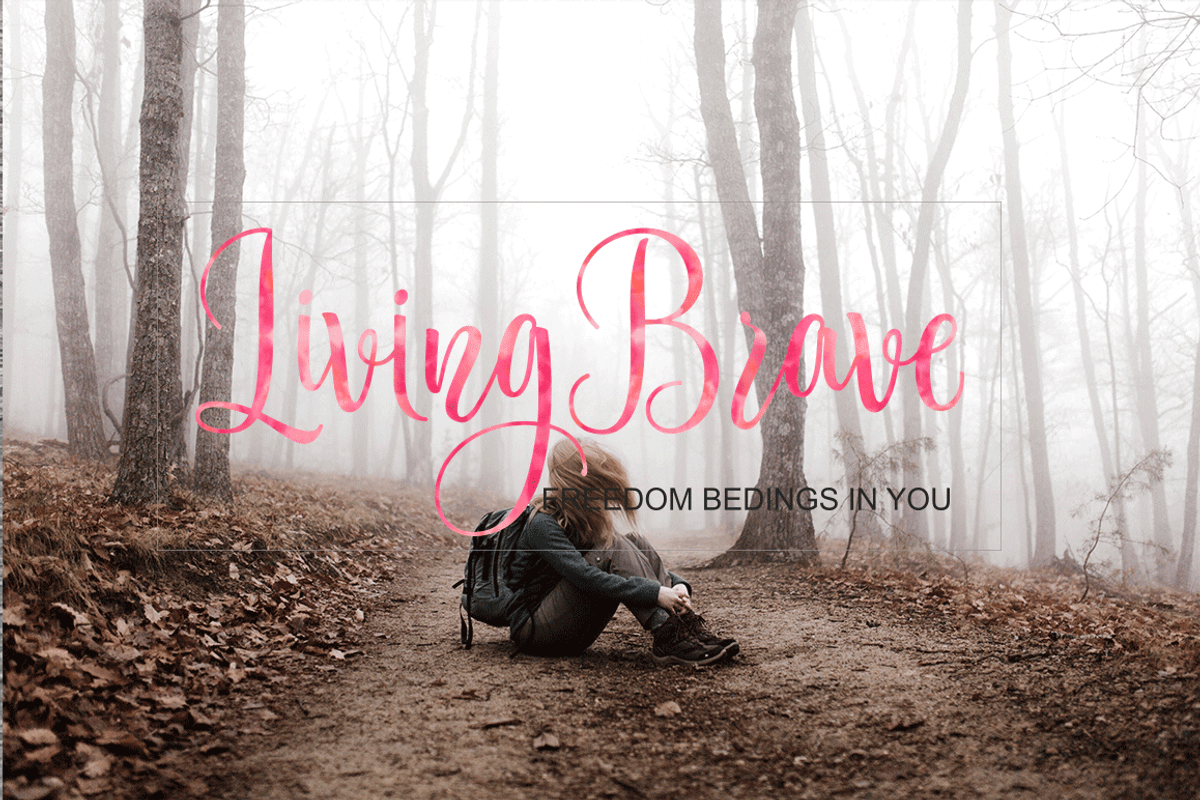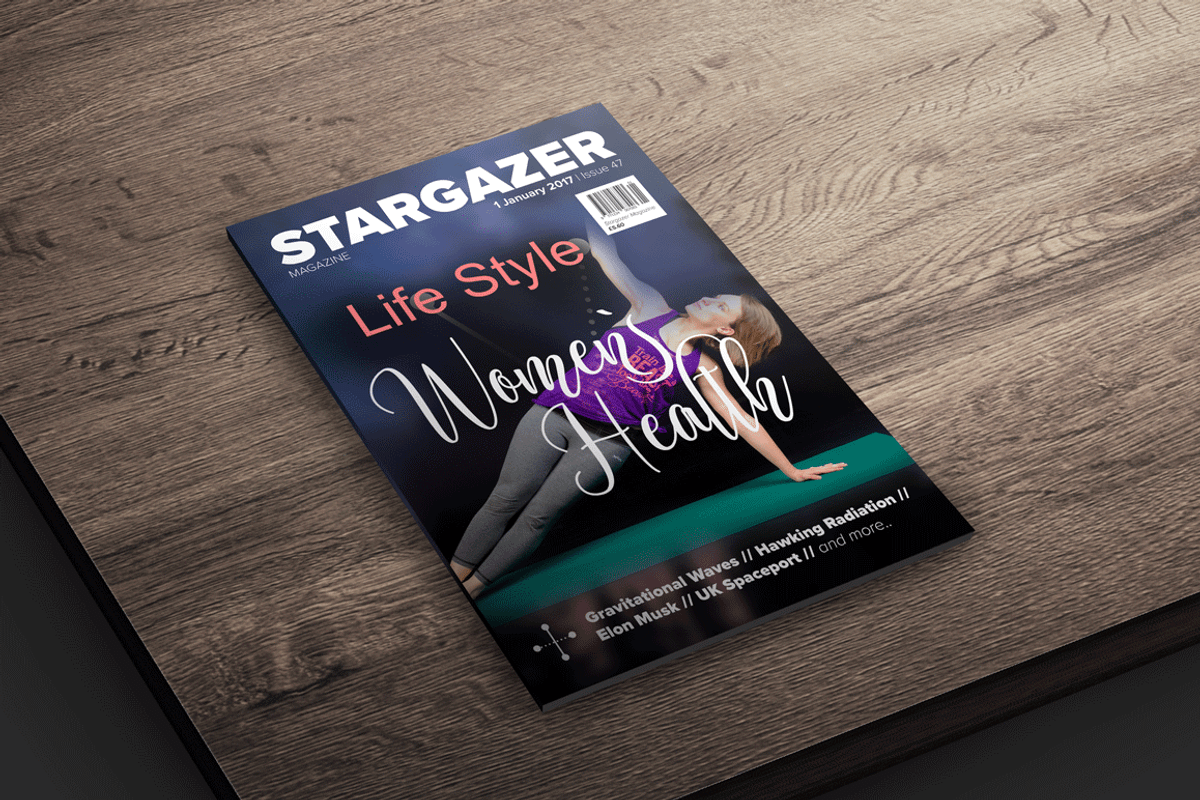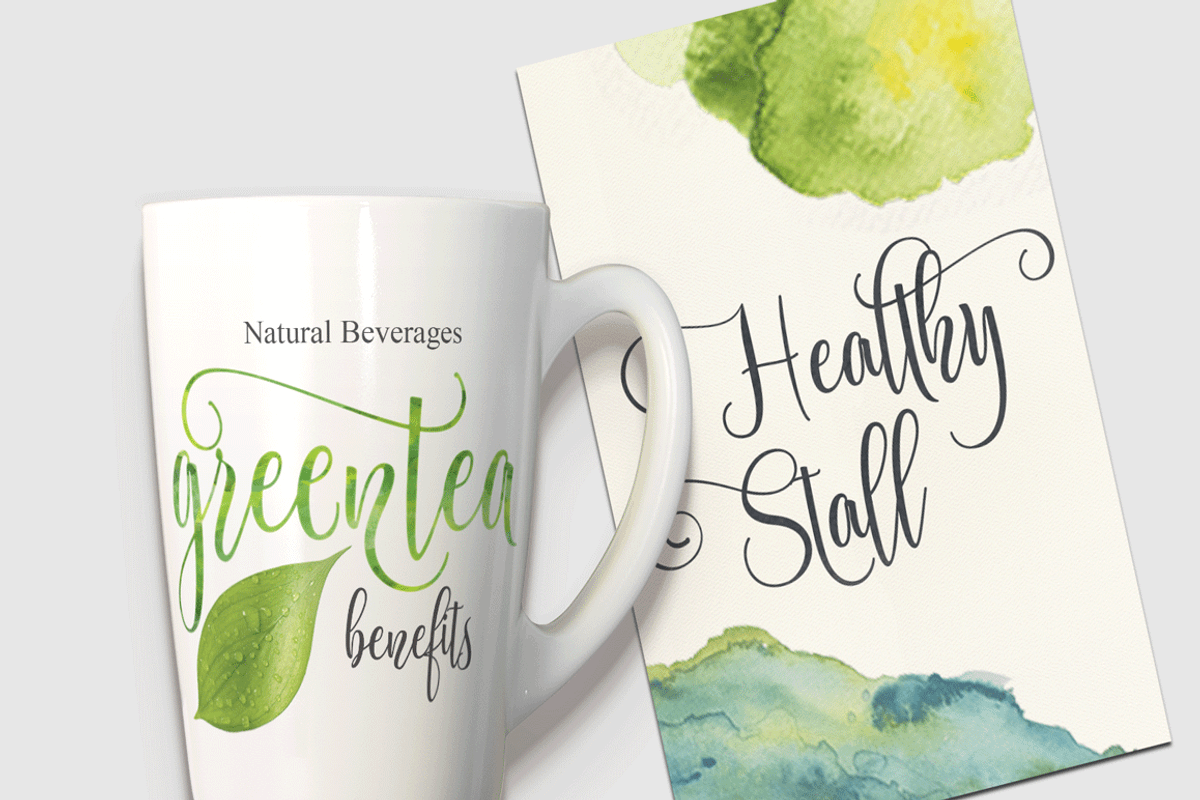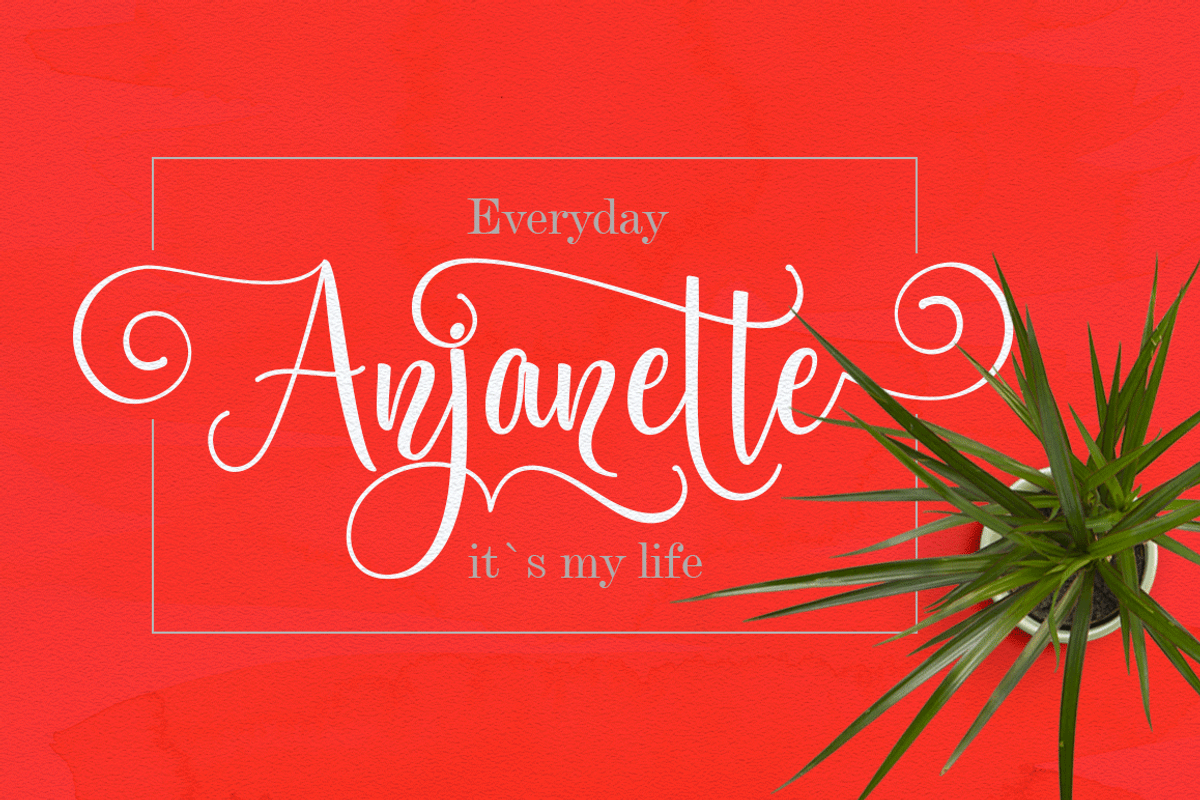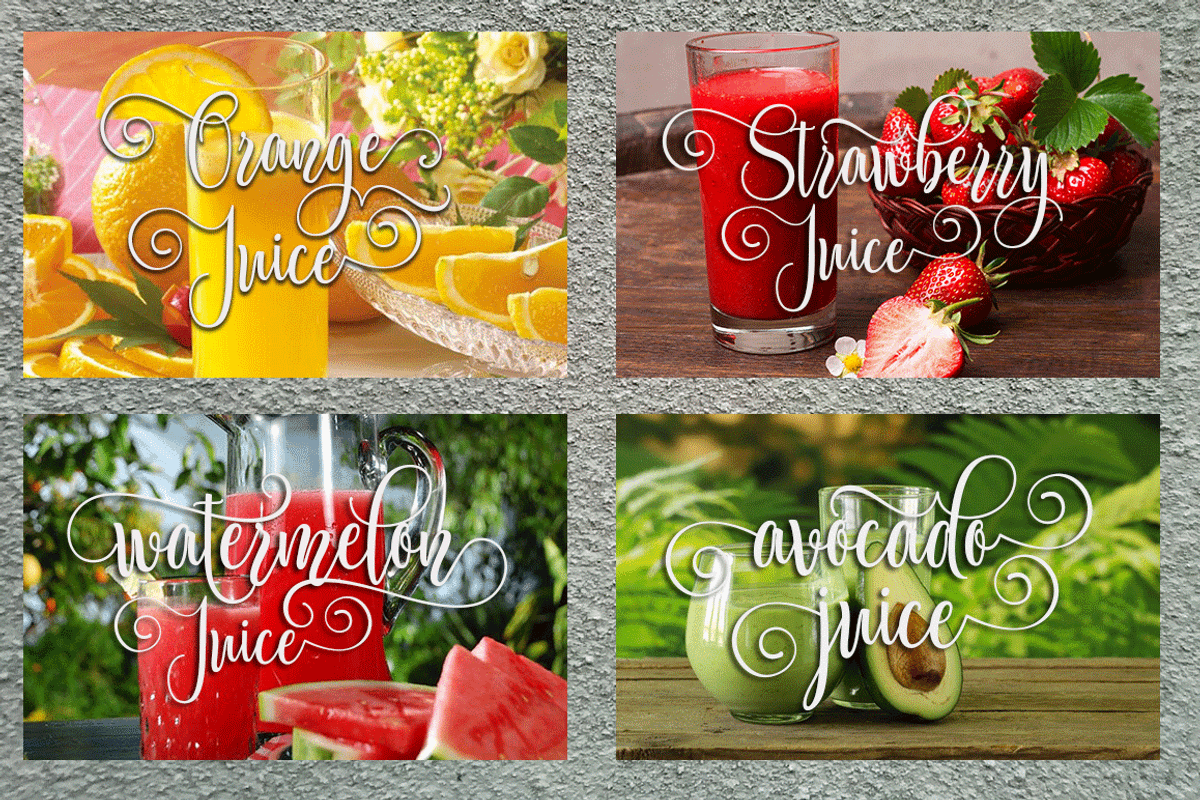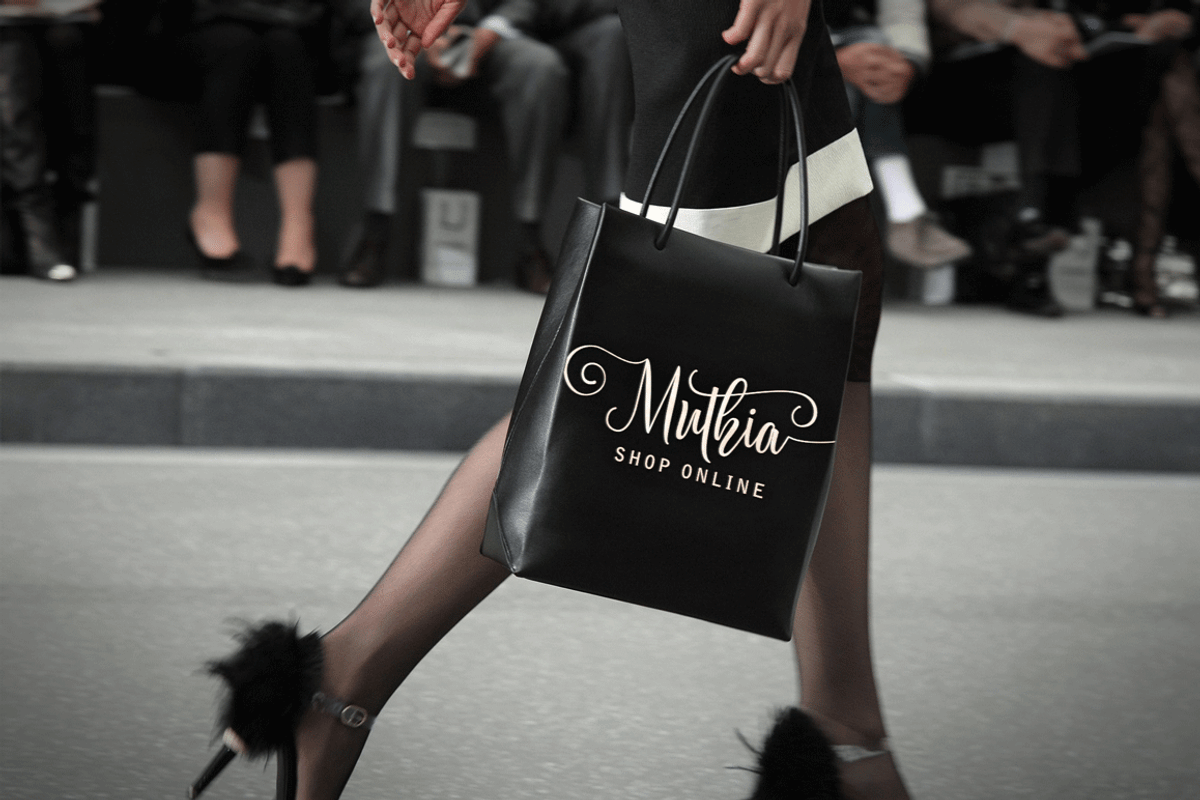
Valentina//Wedding Calligraphy Font
Valentina//Wedding Calligraphy Font by jorse is a font selected for branding, posters, packaging, typography.
- Valentina features 531 glyphs and alternate characters Include .
- including initial and terminal letters, alternates, ligatures and multiple language support.
- The Features of this fonts is; Standart ligatures Discretionary ligatures Swash Alternates Stylistic Alternates Initial Alternates Terminal
Why Valentina//Wedding Calligraphy Font is worth a look
Valentina//Wedding Calligraphy Font by jorse fits naturally into Branding, posters, packaging, typography.